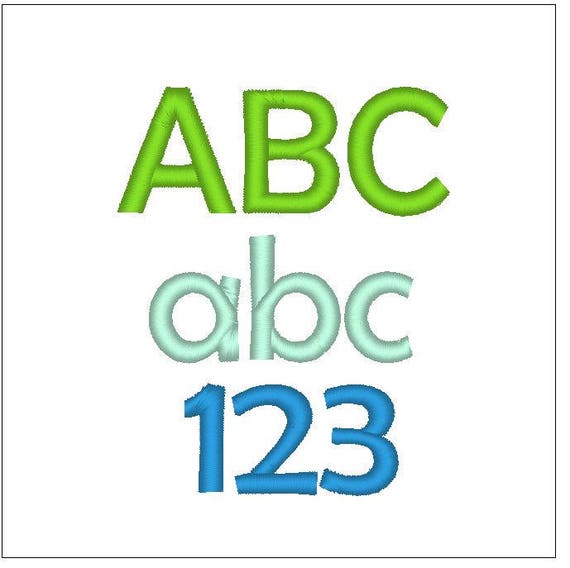
Berlin Sans Font
Berlin sans font. Download Berlin Sans FB Demi Bold font at FontsMarketcom, the largest collection of amazing freely available fonts for Windows and Mac. Fonts similar to 'Berlin Sans' 1 of 30 Berlin Sans FF Enzo Graviola Becky FF Megano Paralucent Text. BERLIN is a modern Sans Serif headline typeface inspired by some classic geometric typefaces that keep the minimalism at it's level best The concept of BERLIN is based on our SIGNIA PRO typeface which was released earlier, but we have added more perfection and attention to the details.
Berlin Sans FB Demi Bold Font Details Please see the details of the Berlin Sans FB Demi Bold font below The details includes the note of the author, license type and the representation of the font in AZ, az, 09 characters. Berlin Sans FB Demi Bold Font is a dependent stateoftheart sansserif font that looks like constantia font with notable condensed text types The designer of this font continues on factor in mind that’s uniqueness. JAF Bernini Sans is a type system with two subfamilies JAF Bernino Sans and JAF Bernina Sans JAF Bernino Sans’s finely balanced weight distribution and open shapes make it a great text face, while the wide variety of weights and widths provide the designer with a powerful toolbox for headings and display typography.
Berlin Sans FB Bold is the perfect font for all your fun designs Berlin Sans FB Bold was designed by David Berlow The author works at company The Font Bureau, Inc. Berlin Sans is based on a brilliant alphabet from the late twenties, the first sans that Lucian Bernhard ever designed, imaginative and littleknown Assisted by Matthew Butterick, David Berlow expanded the single font into a series of four weights, all four complete with Expert character sets, plus one dingbat font. Berlin Sans Demi Font Licensing Options and Technical Information.
Berlin Sans FB Demi Bold Font is a dependent stateoftheart sansserif font that looks like constantia font with notable condensed text types The designer of this font continues on factor in mind that’s uniqueness. Berlin Sans in use “Berlin Sans is based on a brilliant alphabet from the late twenties, originally released by Bauer with the name Negro, the very first sans that Lucian Bernhard ever designed Assisted by Matthew Butterick, David Berlow expanded this single font into a series of four weights, all complete with expert character sets, plus a dingbat font. Type Network offers a curated selection of typefaces from quality foundries for use across desktop, web, apps, and more.
Berlin Sans is based on a brilliant alphabet from the late twenties, the first sans that Lucian Bernhard ever designed, imaginative and littleknown Assisted by Matthew Butterick, David Berlow expanded the single font into a series of four weights, all four complete with Expert character sets, plus one dingbat font. This is the rounded variation of our popular typeface Berlin Berlin Rounded now comes with 4 weights NORMAL / BOLD / EXTRA BOLD The pack includes complete OTF, TTF and Web Fonts (all EOT, SVG, TTF, WOFF, WOFF2 everything is included) Font produced by Fontastica (formerly Unique Foundry), distributed by Designova This font is free. Similar free fonts and alternative for Berlin Sans Demi DeliciousHeavy, MullerExtraBoldDEMO, Muller ExtraBold DEMO, OPTIPhillipBold, Palanquin Dark Bold,.
Berlin Sans is based on a brilliant alphabet from the late twenties, the first sans that Lucian Bernhard ever designed, imaginative and littleknown Assisted by Matthew Butterick, David Berlow expanded the single font into a series of four weights, all four complete with Expert character sets, plus one dingbat font. License Free Author's note Berlin Sans FB font free for Windows and Mac BerlinsansRoman font has been downloaded () times. Berlin Sans is based on a brilliant alphabet from the late twenties, the first sans that Lucian Bernhard ever designed, imaginative and littleknown Assisted by Matthew Butterick, David Berlow expanded the single font into a series of four weights, all four complete with Expert character sets, plus one dingbat font.
Berlin Sans is based on a brilliant alphabet from the late twenties, the first sans that Lucian Bernhard ever designed, imaginative and littleknown Assisted by Matthew Butterick, David Berlow expanded the single font into a series of four weights, all four complete with Expert character sets, plus one dingbat font. Download Berlin Sans FBTrueType font Download 186,286 Free fonts at ufontscom. Download BerlinSansFB Font Free Font Download BerlinSansFB font free for Windows and Mac We have a huge collection of around 72,000 TrueType and OpenType free fonts, checkout more on FontPalacecom.